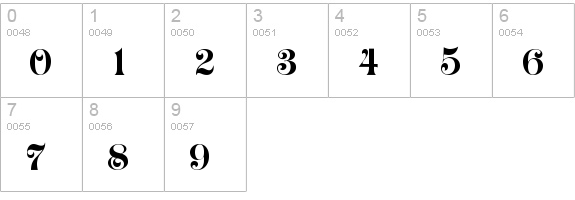
WestNouveauDidot-Normal Font Details
WestNouveauDidot-Normal is the standard, neutral variant in the WestNouveauDidot typeface family \xE2\x80\x94 well suited to general body text, paragraphs, and standard typographic work.
WestNouveauDidot-Normal is a timeless and elegant font that exudes sophistication and refinement. Inspired by the classic Didot typeface, this font brings a modern twist to the traditional design, making it perfect for both print and digital projects. With its clean and sharp letterforms, WestNouveauDidot-Normal is highly legible and versatile, making it suitable for a wide range of applications such as branding, editorial design, and advertising. Whether used for headlines, body text, or even in logo design, this font adds a touch of luxury and professionalism to any project. What sets WestNouveauDidot-Normal apart is that it is not only visually stunning but also freely available to download. You can easily access this font at FontsMarket.com, allowing you to incorporate its beauty into your designs without any cost or restrictions. This makes it an ideal choice for designers, students, and anyone who values high-quality typography without breaking the bank. So, whether you are working on a personal project or a professional assignment, WestNouveauDidot-Normal is the perfect font to elevate your designs. Its combination of classic elegance and contemporary flair will captivate your audience and leave a lasting impression. Download it for free today at FontsMarket.com and unlock the potential of this exquisite font.